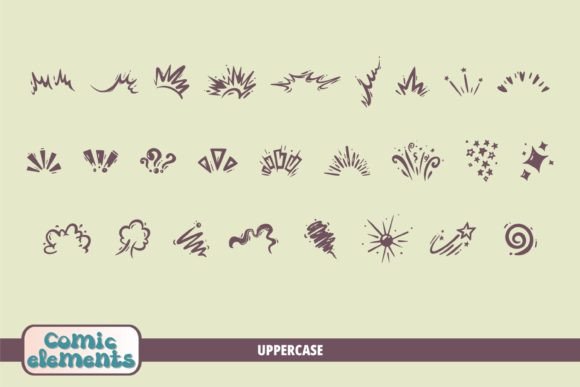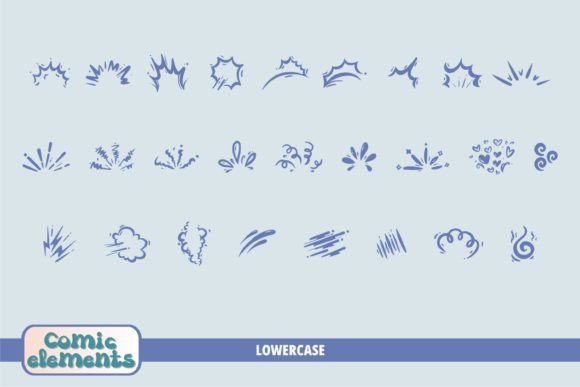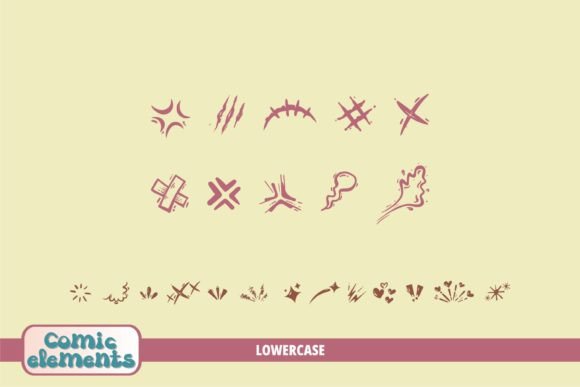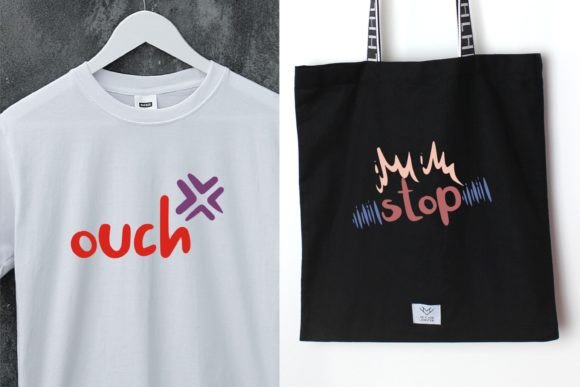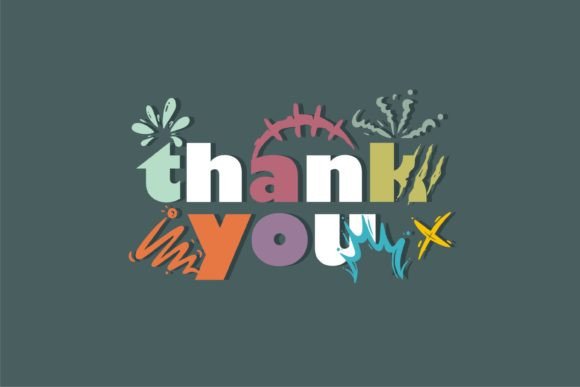
Introducing Comic Elements Font: Add a Playful Touch to Your Designs
Are you tired of using the same old boring fonts in your designs? Do you want to add a playful touch to your creative projects? Look no further than Comic Elements Font, a hand-drawn dingbat font that’s perfect for designers and crafters alike. In this article, we’ll explore the features and benefits of Comic Elements Font and show you how to use it to take your designs to the next level.
What is Comic Elements Font?
Comic Elements Font is a unique and playful dingbat font that’s designed to add a fun and creative touch to your designs. Unlike traditional fonts, dingbat fonts are made up of symbols, shapes, and illustrations rather than letters and numbers. Comic Elements Font is a collection of hand-drawn dingbats that can be used for a variety of purposes, from decorating designs and plans to adding a touch of personality to your digital projects.
Key Features of Comic Elements Font
- Hand-drawn illustrations: Each dingbat in Comic Elements Font is carefully hand-drawn to ensure a unique and playful look.
- Versatile design: The font includes a range of illustrations, from simple shapes to more complex designs, making it perfect for a variety of projects.
- Scalable: The font is scalable, making it perfect for use in both digital and print projects.
Uses for Comic Elements Font
Comic Elements Font is a versatile font that can be used in a variety of ways. Here are some ideas to get you started:
- Decorating designs and plans: Add a playful touch to your designs and plans with Comic Elements Font’s fun and creative illustrations.
- Digital projects: Use Comic Elements Font to add a touch of personality to your digital projects, such as social media graphics, blog posts, and email newsletters.
- Crafting and scrapbooking: Comic Elements Font is perfect for crafters and scrapbookers who want to add a unique and playful touch to their projects.
- Graphic design: Use Comic Elements Font to add a creative touch to your graphic design projects, such as brochures, flyers, and posters.
Tips for Using Comic Elements Font
Here are some tips for getting the most out of Comic Elements Font:
- Experiment with different sizes and colors: Don’t be afraid to experiment with different sizes and colors to find the perfect look for your project.
- Combine with other fonts: Combine Comic Elements Font with other fonts to create a unique and interesting look.
- Use sparingly: Use Comic Elements Font sparingly to avoid overwhelming your design.
Comic Elements Font is a playful and versatile dingbat font that’s perfect for designers and crafters alike. With its hand-drawn illustrations and easy-to-use design, it’s a great way to add a creative touch to your projects. Whether you’re looking to decorate designs and plans, add a touch of personality to your digital projects, or create unique and interesting graphic design projects, Comic Elements Font is the perfect choice. So why not give it a try and see how it can take your designs to the next level?